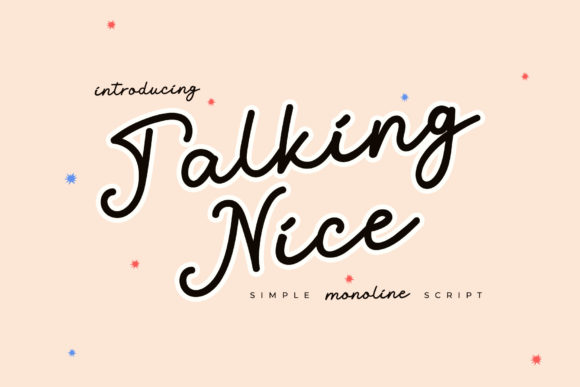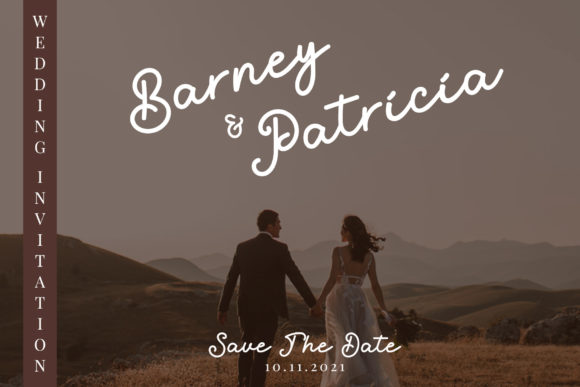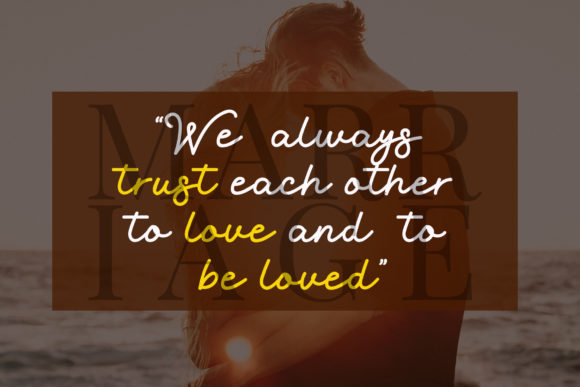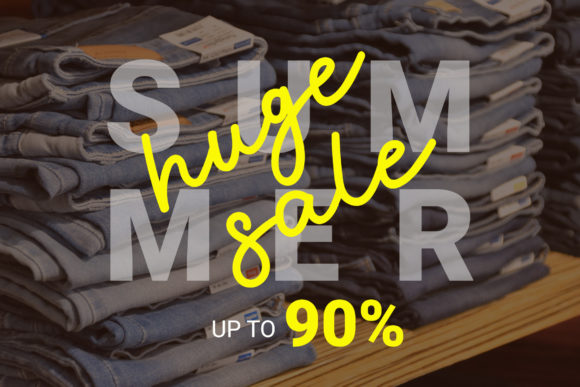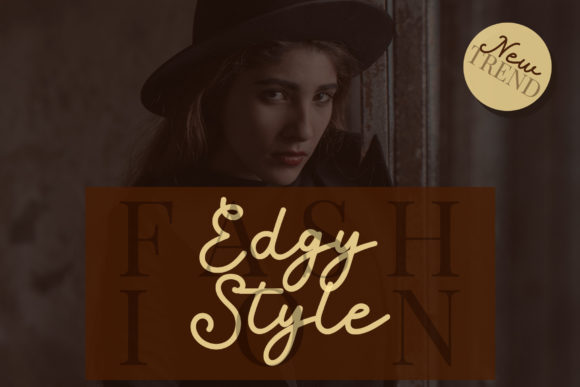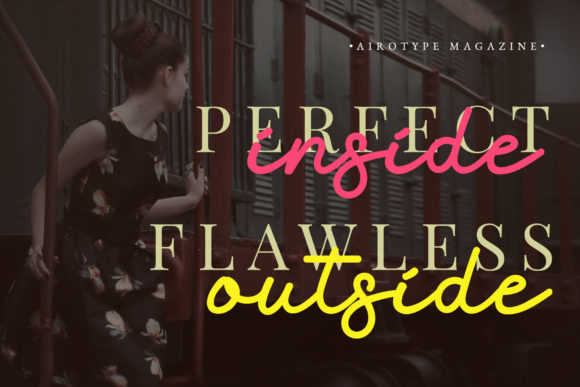
Talking Nice Font
About Talking Nice Font
Talking Nice is a lovely, delicate and vintage styled script font. It is PUA encoded which means you can access all of the glyphs and swashes with ease!